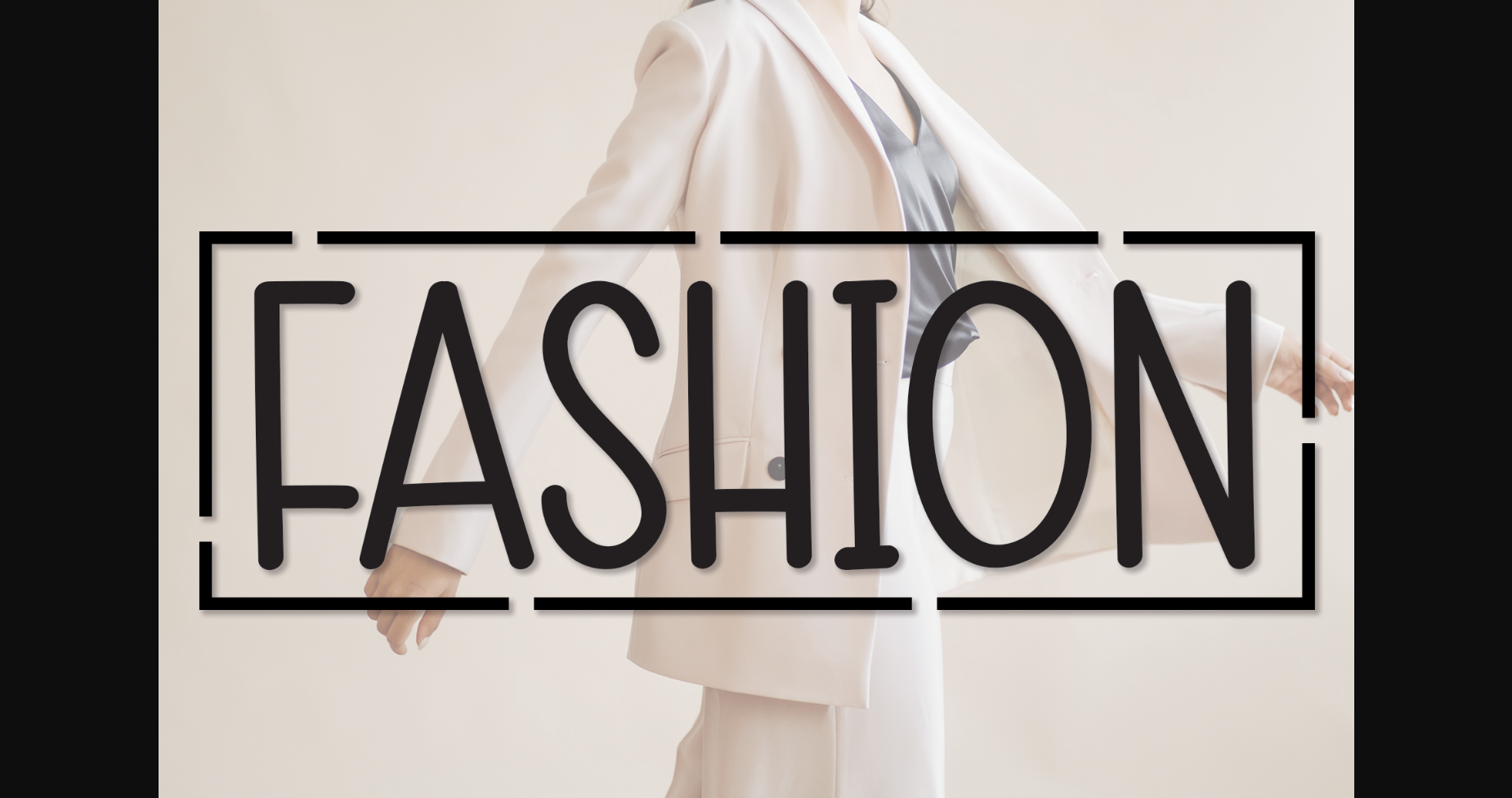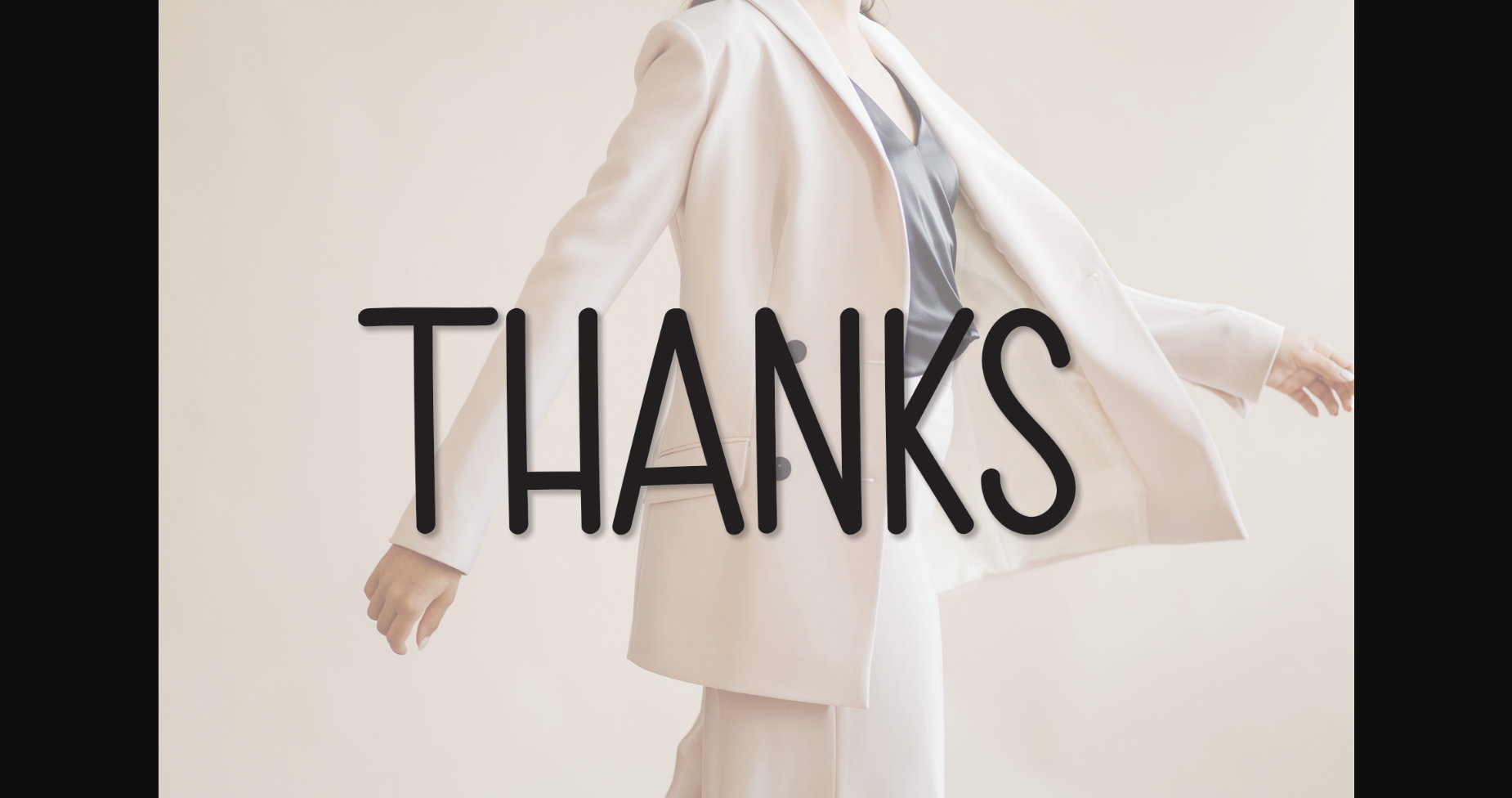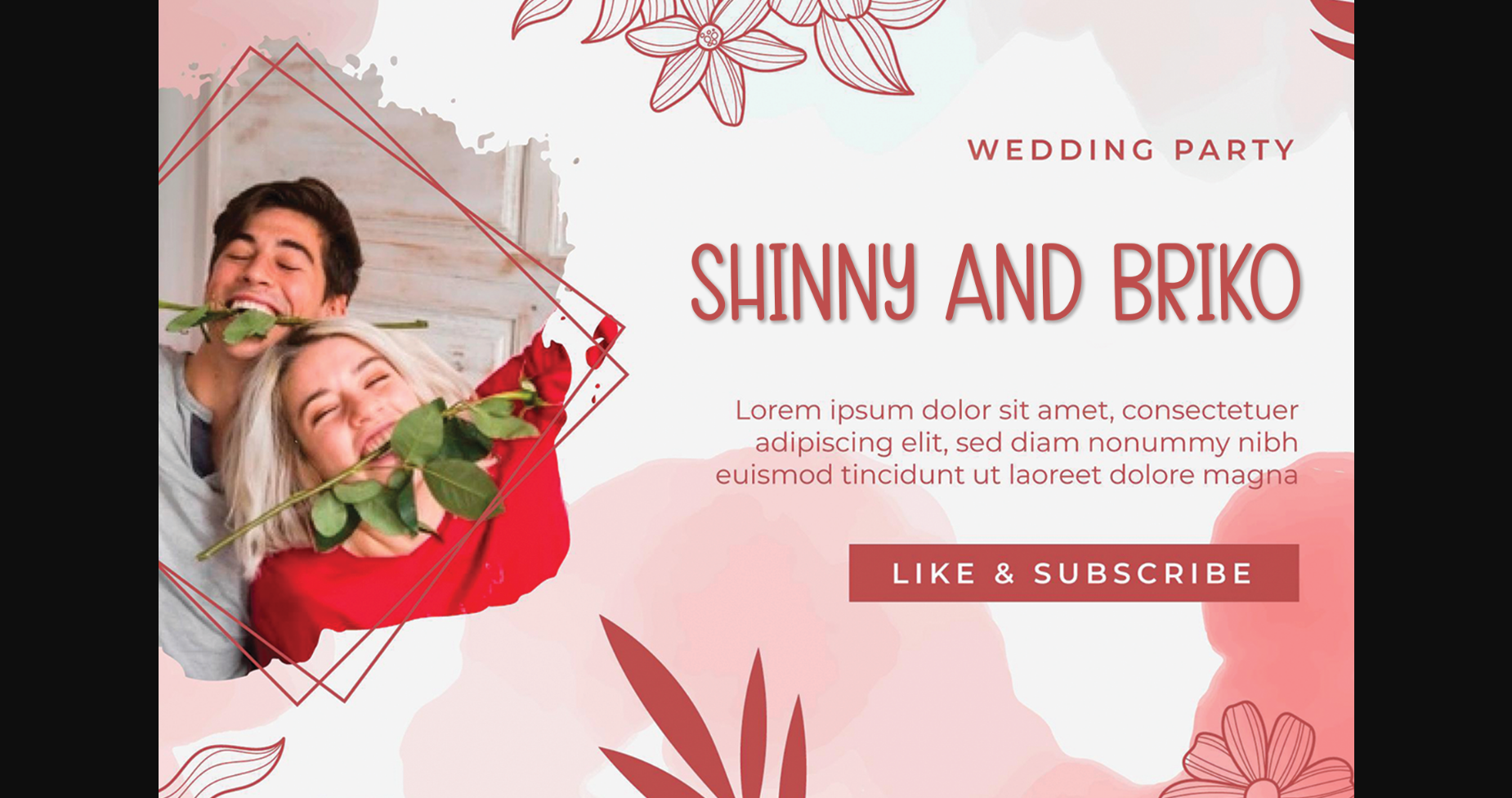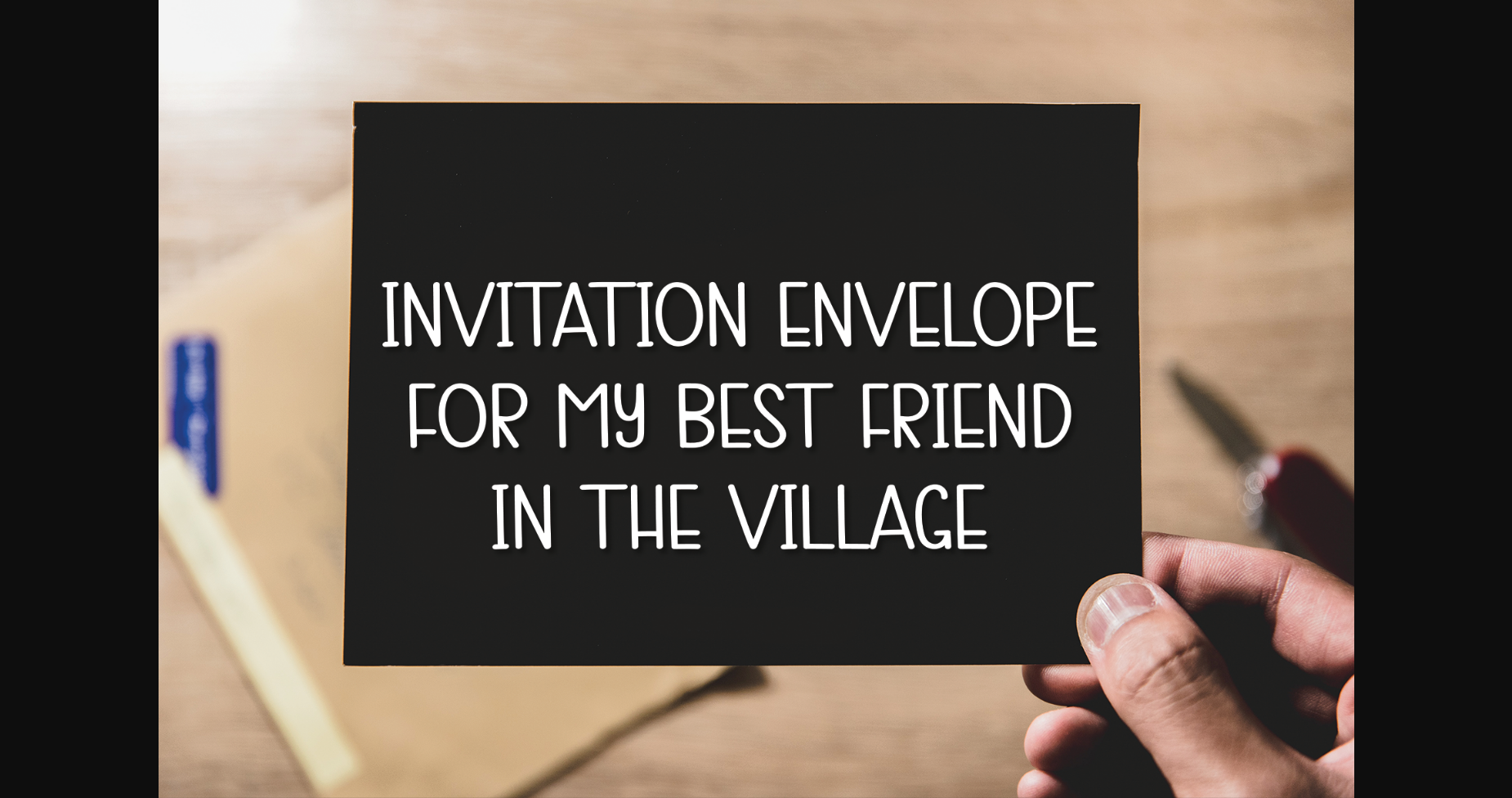
About Fashion Font
Fashion is a minimalist and sleek sans-serif font. Its latest style letters are perfect for wall displays, wedding invitations, social media post logos, advertisements, product packaging, product designs, labels, photography, watermarks, invitations, stationery, and any project that requires unique typography.